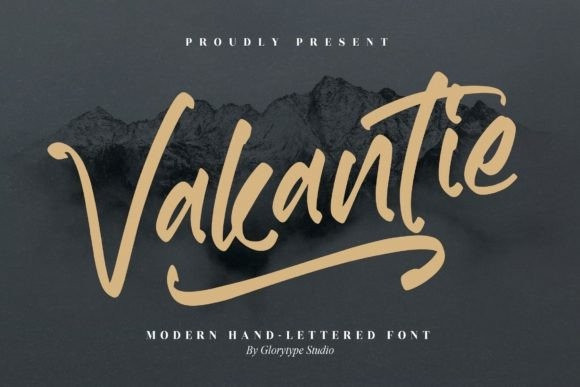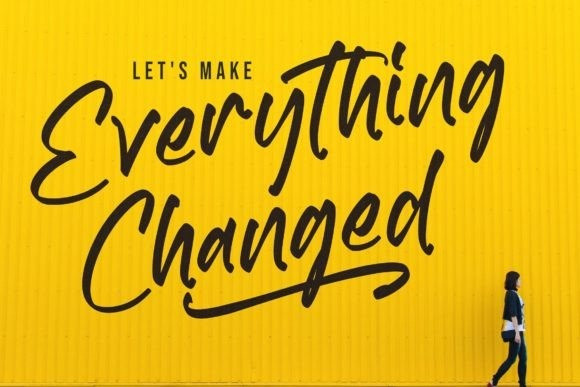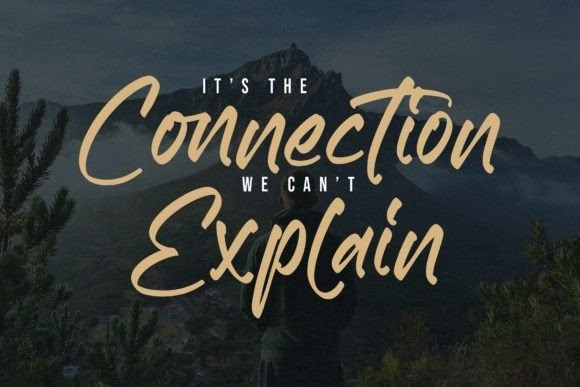
Vakantie Font
Vakantie – Modern Hand-Lettered Font , from Glorytype Studio, suitable for any projects such as: logos, branding projects, homeware designs, product packaging, mugs, quotes, posters, shopping bags, t-shirts, book covers, name card, invitation cards, greeting cards, label, photography, watermark, special events, and all your other lovely projects that need a beautiful script taste.